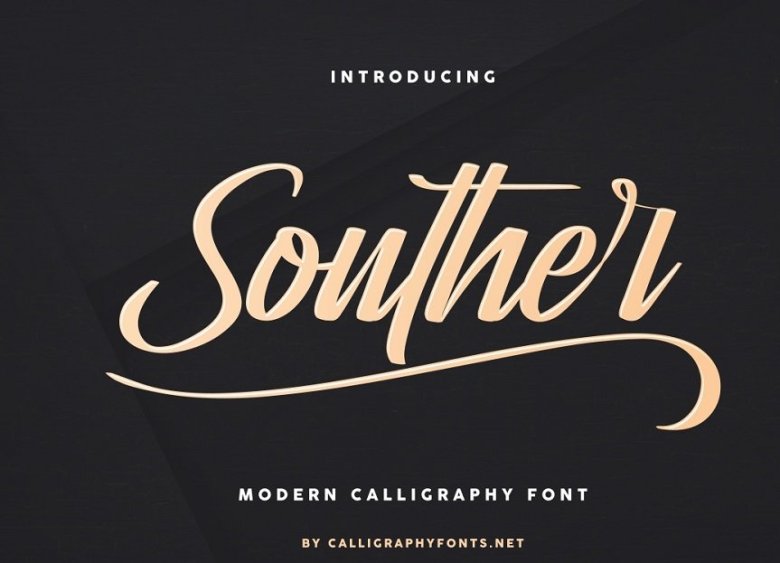
Souther Brush Script Font
Souther Brush Script Font is a Hand brush script font. The style of this font are contemporer, oldschool, elegant, luxury and classic brush font.